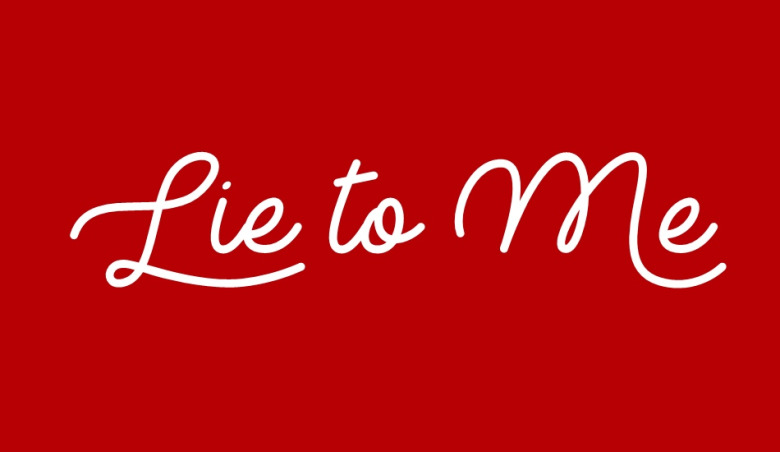
Lie to Me Font
Lie to Me is a high quality Handwritten font that is designed by Misti’s Fonts and is available for free download and personal use. The free version provides all uppercase and lowercase letters and a few special characters too.
Lie to Me Handwritten Font